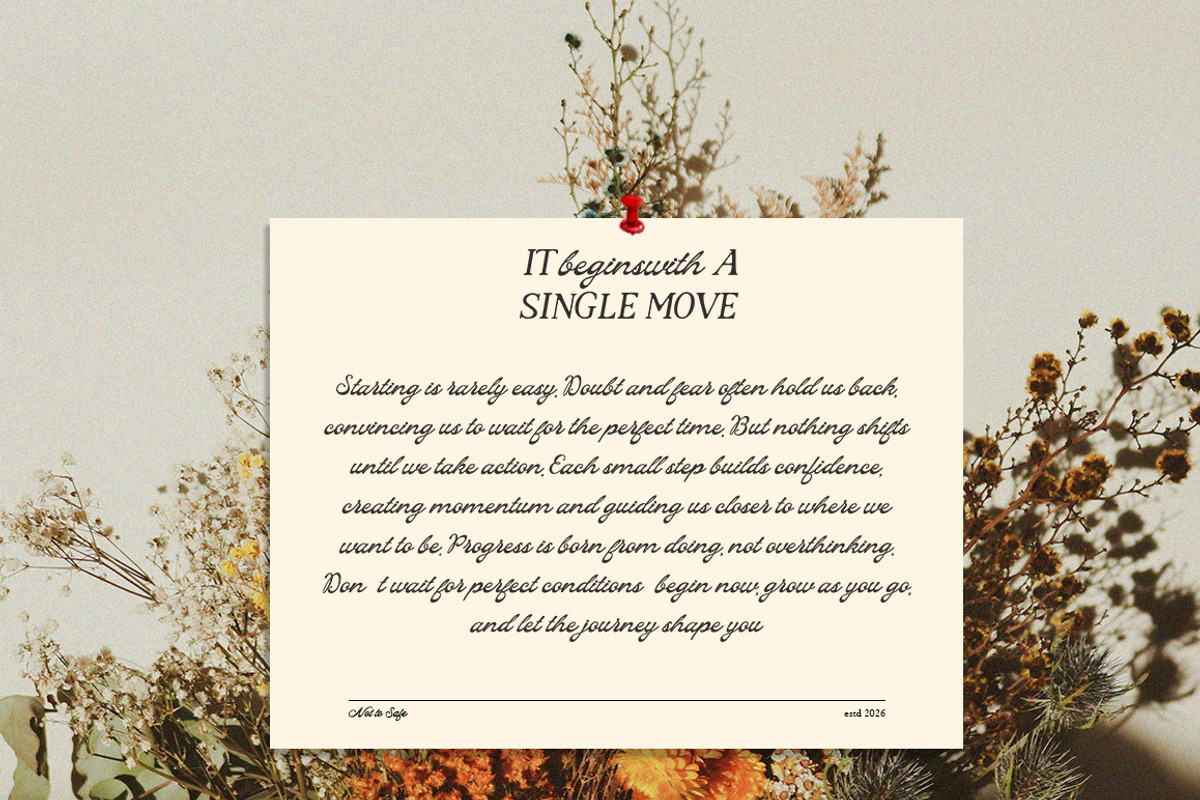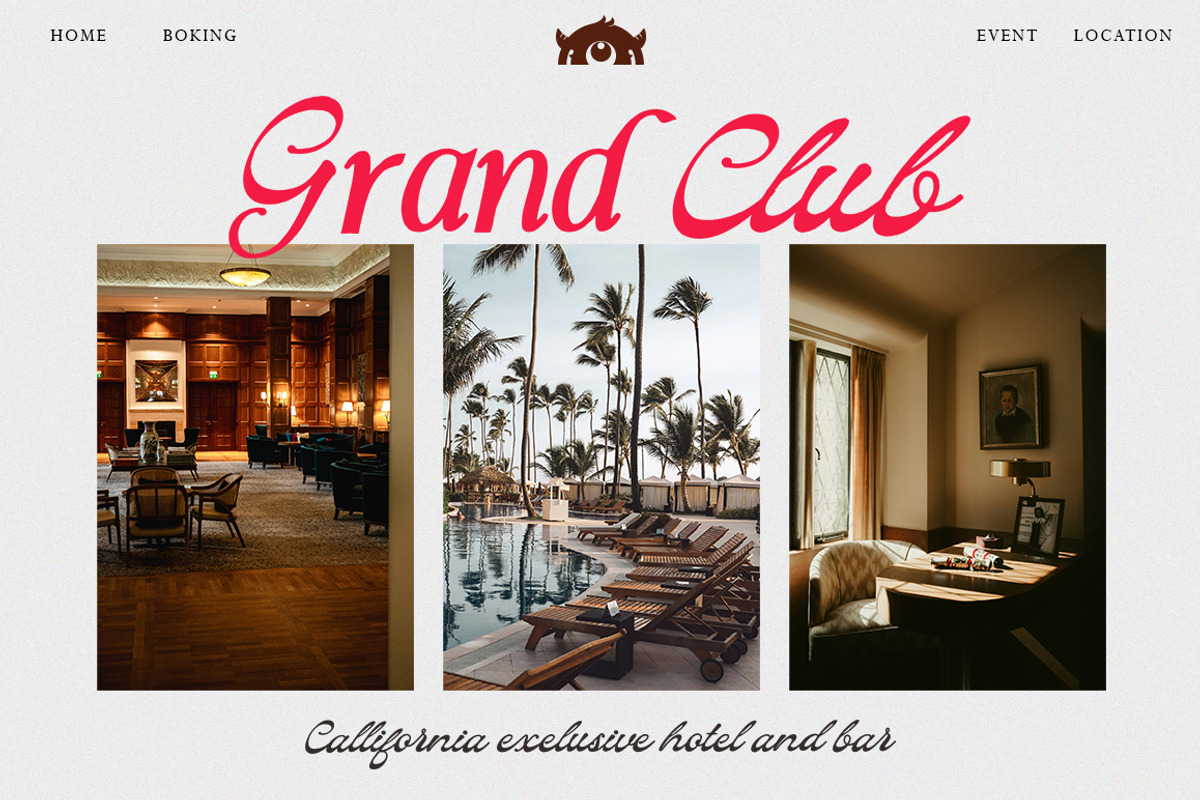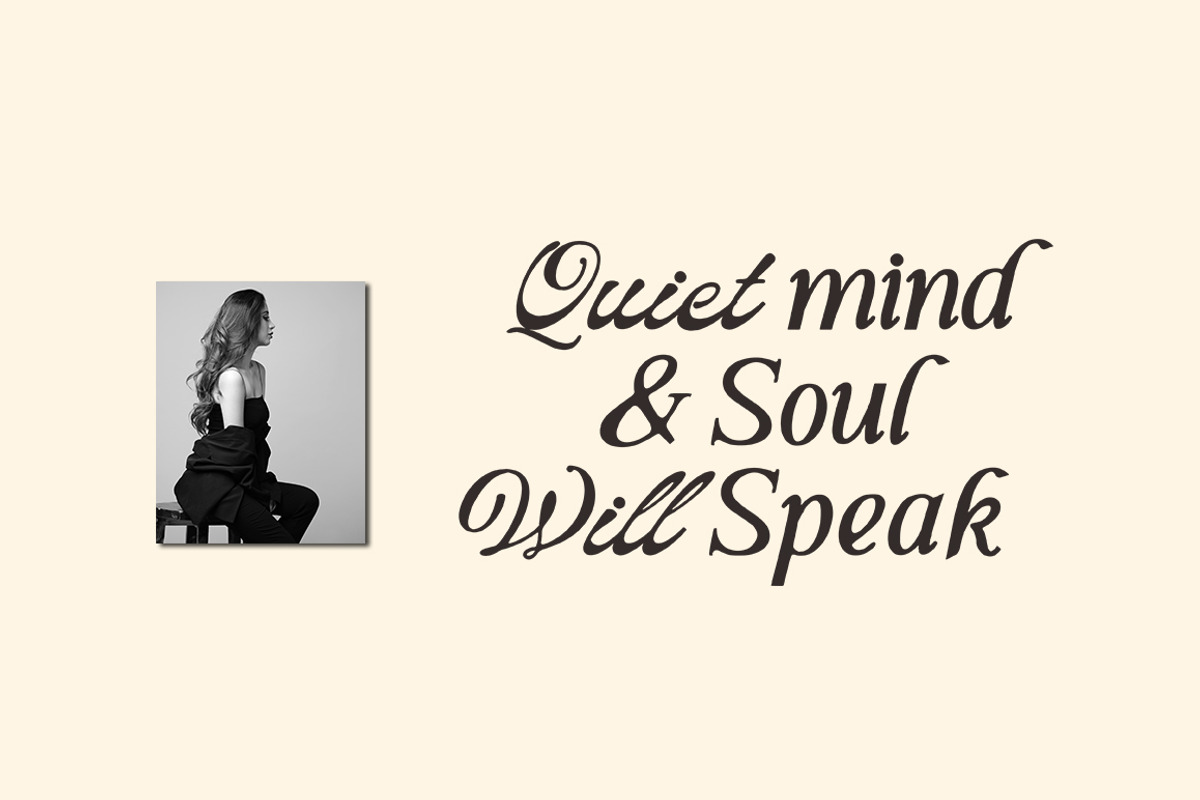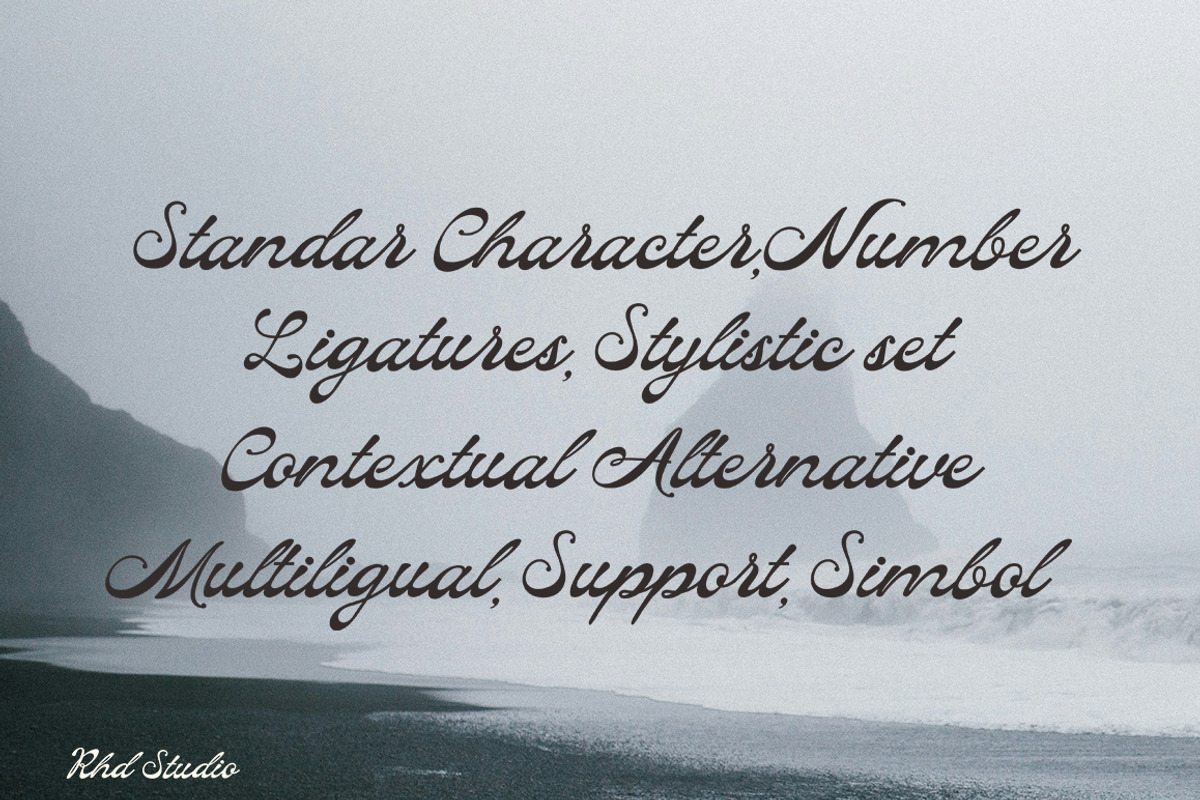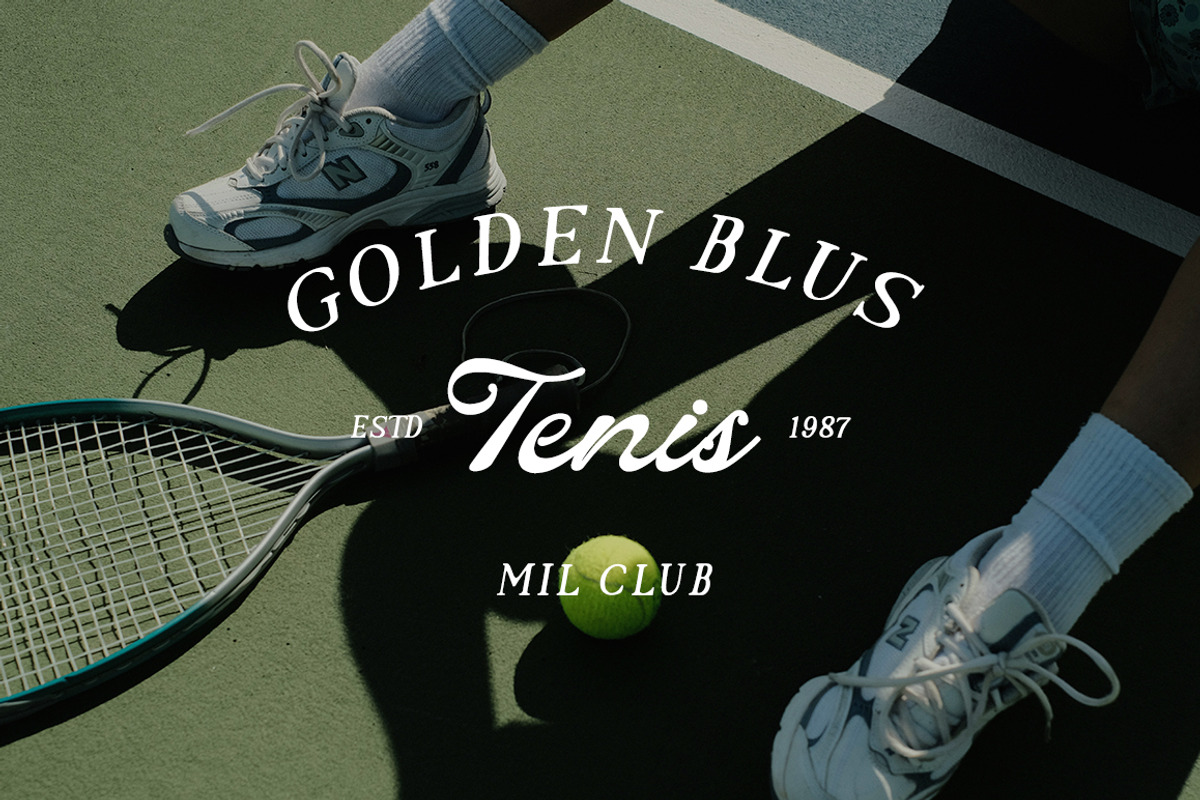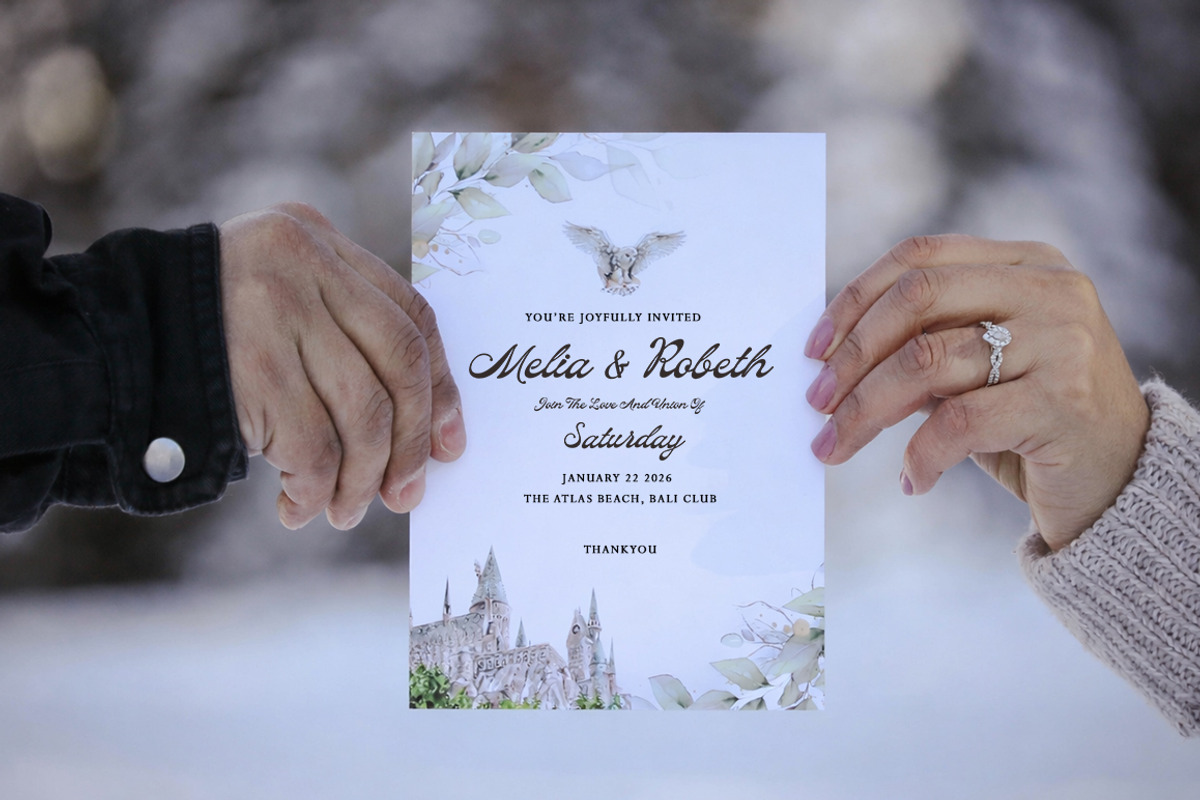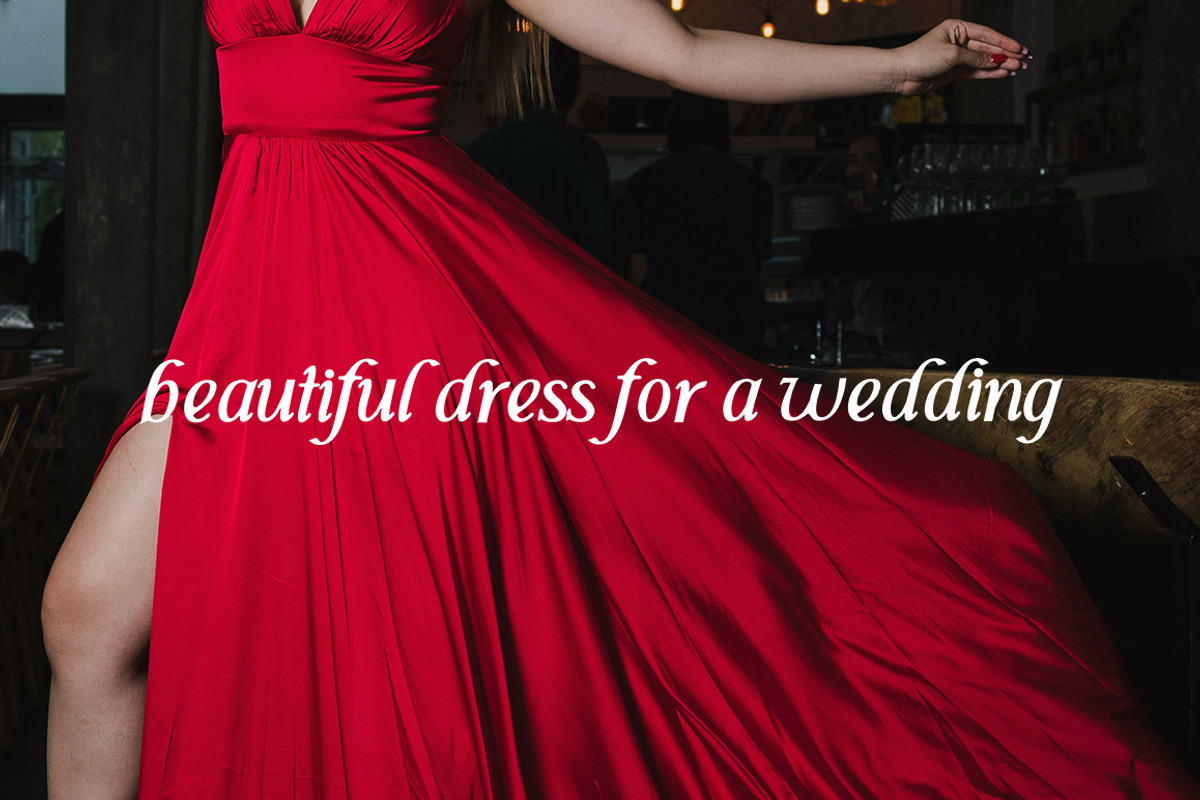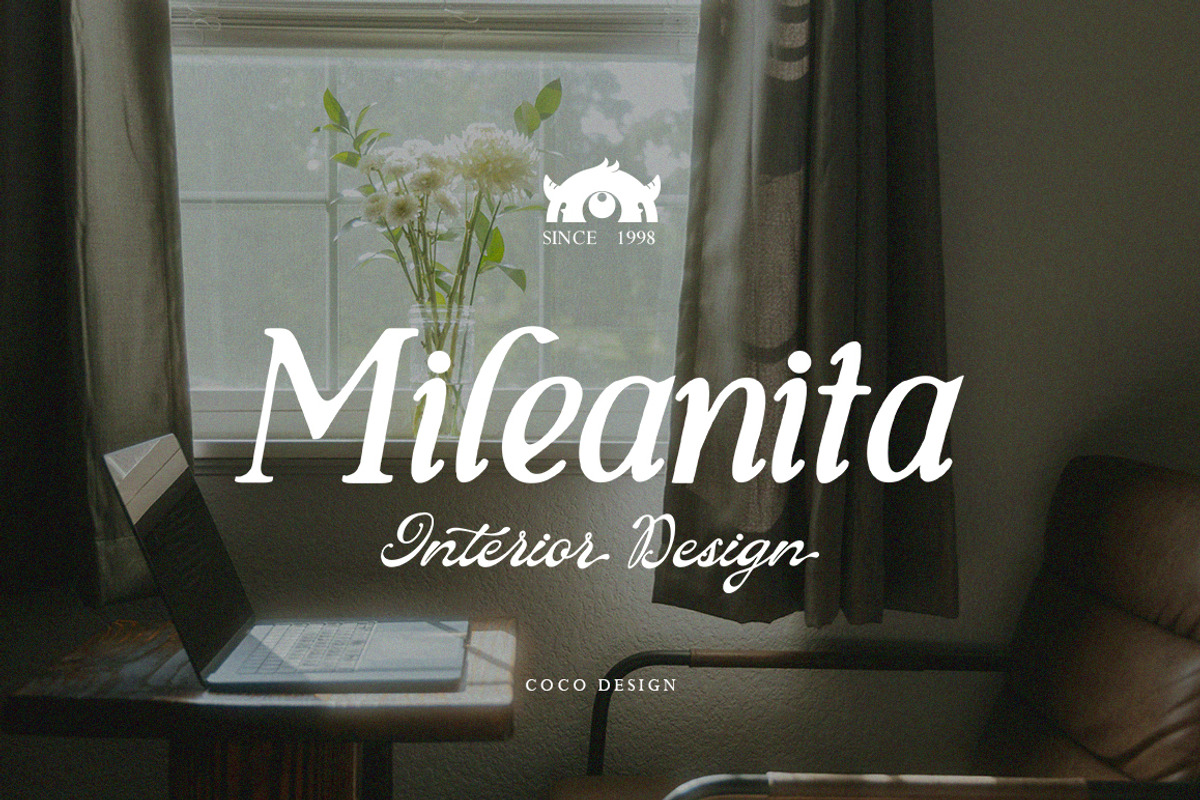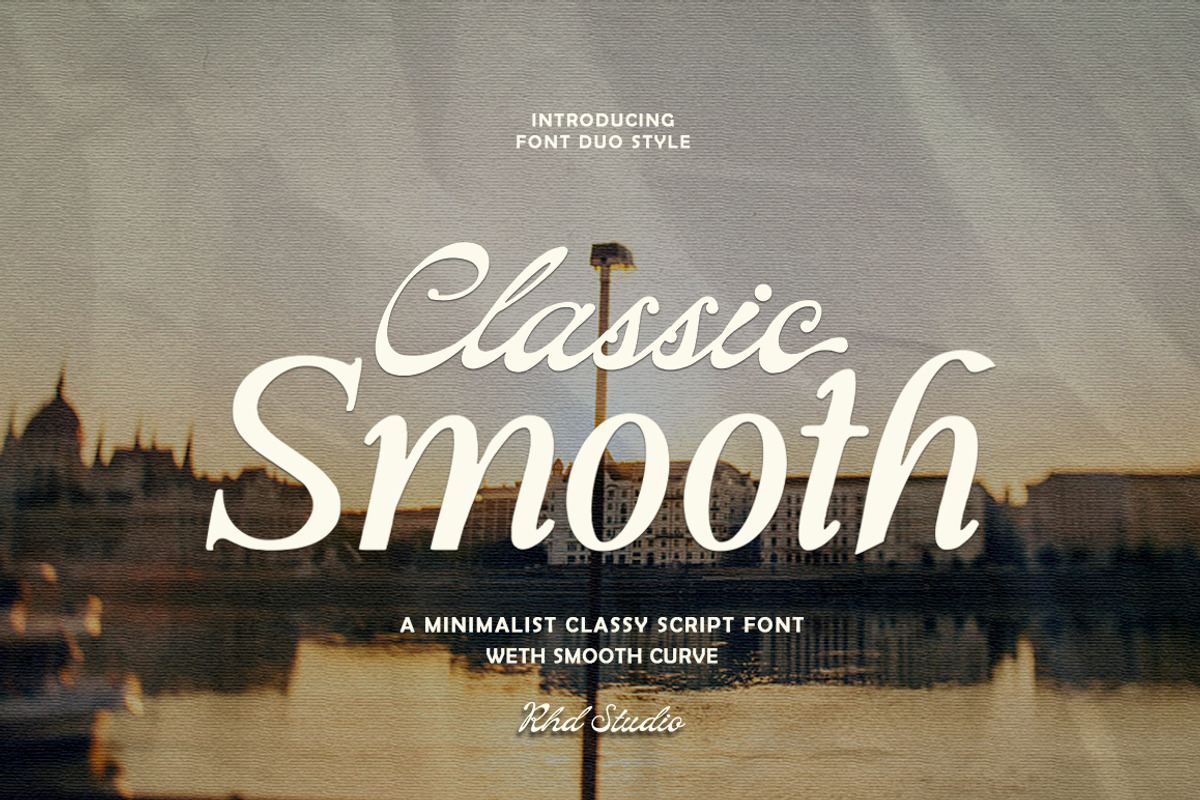
Classic Smooth
This font blends timeless elegance with smooth modern curves, creating a refined and graceful script style. Its balanced strokes and flowing letterforms deliver a classy, sophisticated look that feels both warm and professional. Perfect for logos, branding, headlines, and premium design projects, this font adds a subtle touch of luxury to any visual composition
Overall, this font is a representation of simple yet meaningful beauty, a perfect choice for designers who want to convey a message in a soft, exclusive and characterful style.